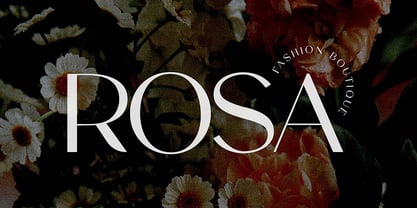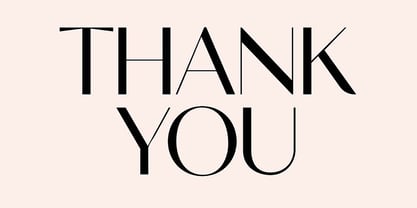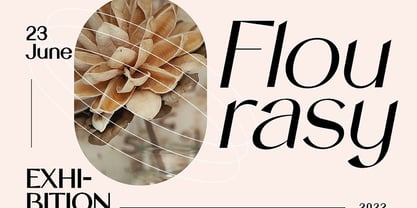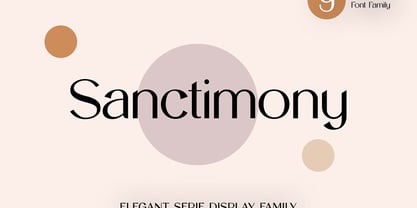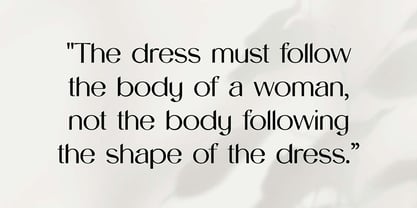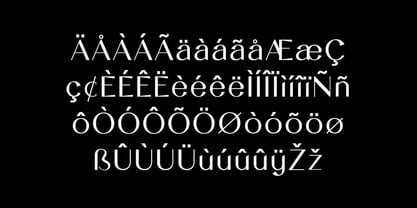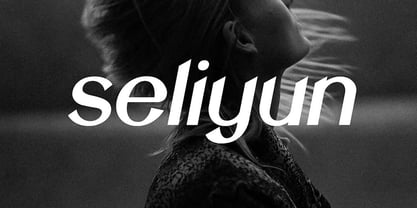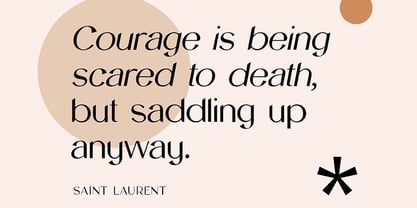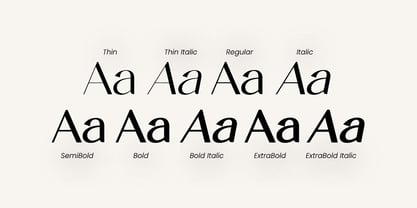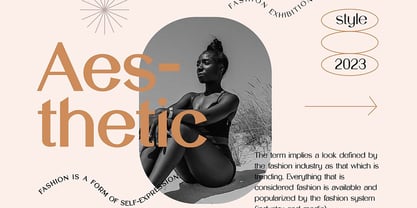
Sanctimony
Sanctimony Elegant Serif Display Font. The modern display font feels beautiful classy, elegant, and stylish. This font is ideally suited for a wide variety of projects, such as signature, stationery, logo, wedding, typography quotes, magazine or book covers, website headers, branding, and more. Also, fashion-related branding or editorial design displays both masculine and feminine qualities.